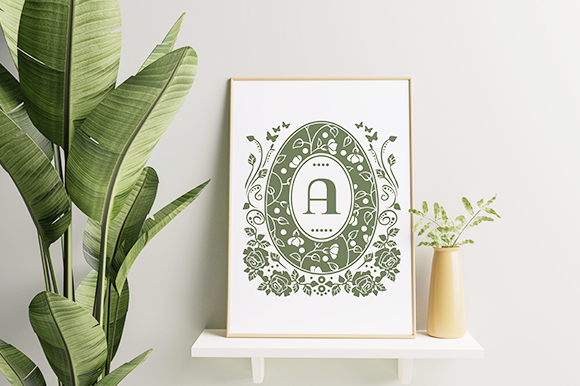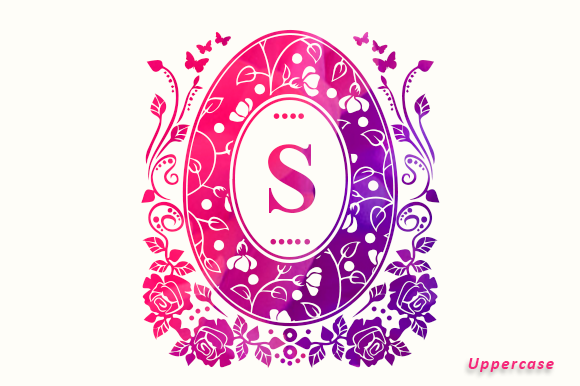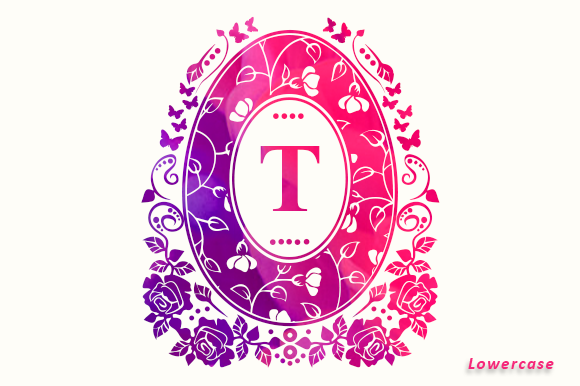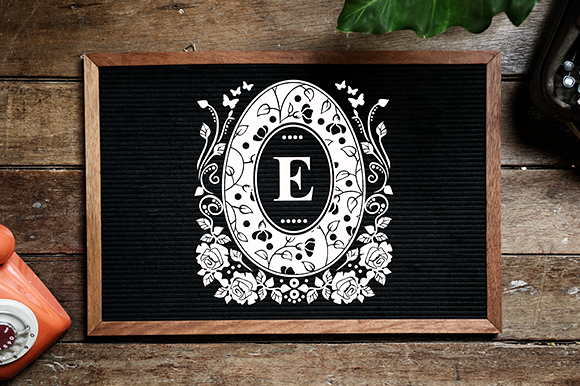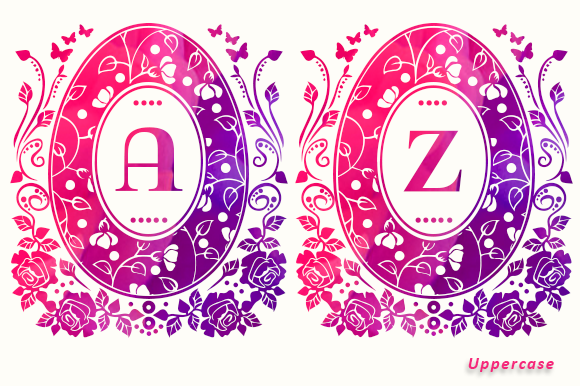
Introduction to Easter Egg Flowers Font
Have you ever stared at a blank page, trying to come up with the perfect design for your Easter-related project, only to be stuck in a creative rut? We’ve all been there. But what if I told you there’s a secret design resource that can instantly elevate your Easter-themed creations and make them stand out from the crowd?
Enter the Easter Egg Flowers Font, a delightful decorative font that’s sure to bring a touch of whimsy and wonder to your designs. With its simple yet striking design, this font is a game-changer for any creative project, whether you’re working on a digital invitation, a social media graphic, or a promotional flyer.
Key Features of Easter Egg Flowers Font
- High-quality design resource perfect for creative projects, offering a unique and delicate touch.
- Includes a transparent background, allowing for seamless integration into various design elements.
- Features intricate, hand-drawn illustrations of Easter eggs and flowers, adding a touch of whimsy to any design.
- Perfect for designers looking for a unique and eye-catching design resource to elevate their creative project.
Honest Review: Easter Egg Flowers Font
I recently stumbled upon the Easter Egg Flowers Font, and I must say it’s a lovely addition to any creative project. This free download offers a high-quality design resource that’s perfect for spring-themed projects, Easter cards, or even decorative packaging.
Here are some aspects that work well with this font:
- ✨ The Easter Egg Flowers Font comes with a transparent background, making it easy to layer with other design elements.
- ✨ The design is delicate and intricate, perfect for adding a touch of whimsy to any project.
However, I do have some limitations to mention:
- ⚠️ The font might not be suitable for large-scale projects, as it may get lost in the design.
- ⚠️ Some users might find the font’s intricacy overwhelming, making it difficult to read.
Overall, the Easter Egg Flowers Font is a beautiful design resource that’s perfect for smaller, more delicate projects. While it has its limitations, it’s a great addition to any designer’s toolkit, especially for those working on spring-themed or Easter-inspired projects.
Tips for Getting the Most Out of Easter Egg Flowers Font
To maximize the font’s potential, experiment with different combinations of font sizes, colors, and layering techniques. Consider using the font as a background element or incorporating it into a larger design composition.
The Easter Egg Flowers Font is suitable for a variety of creative projects, including greeting cards, party invitations, and social media graphics. Its high-quality design and transparent background make it an excellent choice for any design resource.
Yes, the Easter Egg Flowers Font has a transparent background, making it ideal for digital designs that require a seamless integration with other elements. You can use it for social media graphics, web design, or any other digital project that requires a high-quality, custom font.